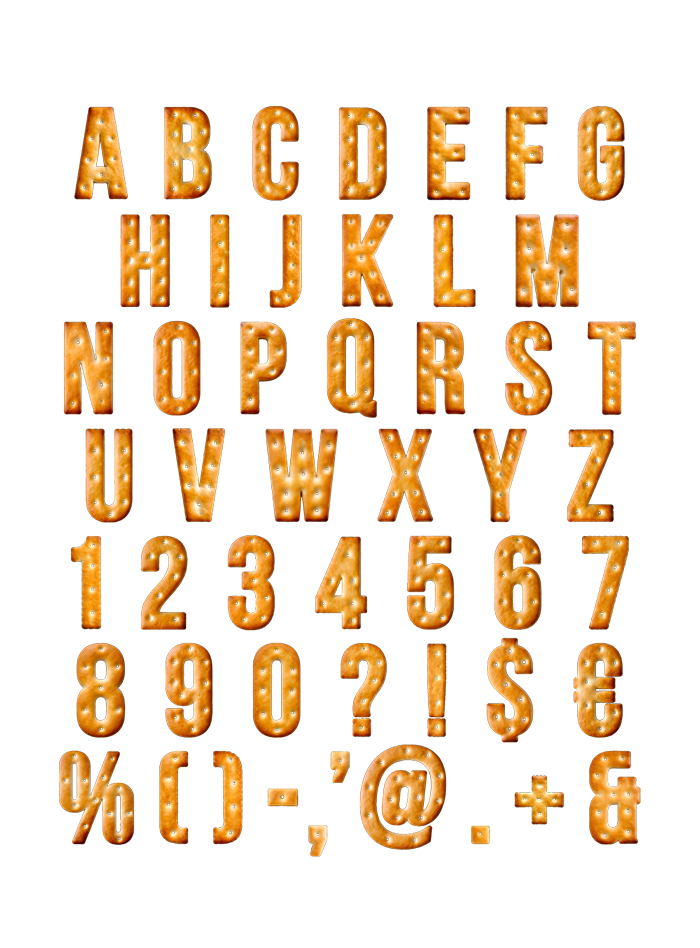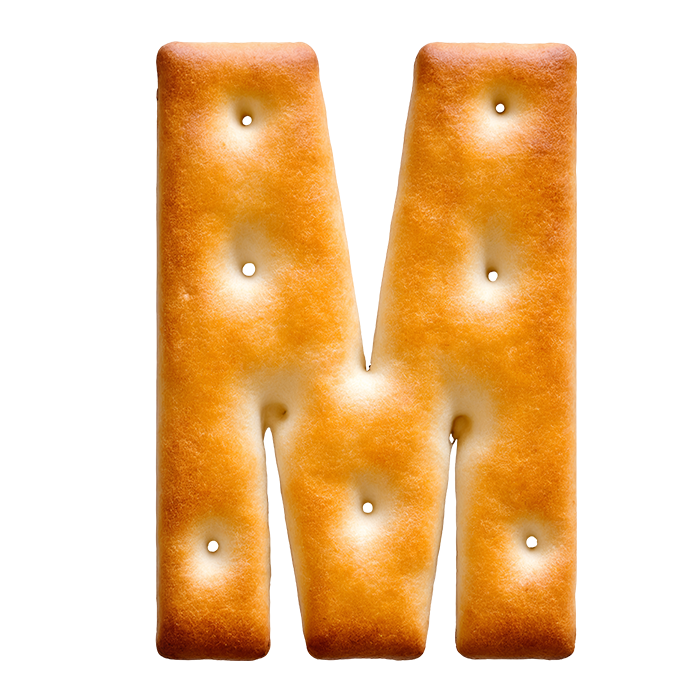
Crackers Font – Golden Baked Letters with Docking Holes
Golden baked crust, docking holes scattered in a loose grid, edges toasted a shade darker than the middles. The Crackers Font sits on narrow squared-off capitals, which is what a cracker wants to be anyway. Caps, numerals, currency and punctuation are baked the same way. Give it a warm ground and a big size, and it reads as homemade.
Baked, Docked and Slightly Uneven
Every character in the Crackers Font came out of an oven rather than a vector tool. Docking holes dot the surface in a loose grid, so no two letters carry the same pattern. Edges are toasted a shade darker, while the middles stay pale gold. Tiny bubbles and salt crystals also sit right on the crust, catching the light. Because each glyph bakes a little differently, a word never looks stamped out.
A Condensed Sans Underneath the Crumb
Strip the texture away and you find narrow, squared-off capitals. That is deliberate, since a cracker is flat and rectangular to begin with. Caps run A to Z, and numerals, currency and punctuation get baked the same way. Even the at sign kept its docking holes. So the set holds up long after the alphabet runs out.
Animation building a word letter by letter in the Crackers Font
It Wants Warm Light and Room
Cream, teal, dark brown: warm or contrasting grounds both bring out the crust. The mockups run it across a wall sign, a framed print, a black notebook and a white tee. Still, print it big, because the holes and crumbs are the entire point. And skip busy photographs, since the texture already does that job.
Where the Crackers Font Sells
Crackers Font cover spelling FONT in baked cracker capitals on cream
Full Crackers Font character set of baked capitals, numerals and symbols
Framed teal print of a cracker currency symbol from the Crackers Font
White t-shirt printed with two baked words in the Crackers Font
Wall sign spelling a short word in the Crackers Font on alternating panels
Pale blue poster with a four-line snack saying set in the Crackers Font
Black notebooks with a title baked in the Crackers Font on the cover
Cracker percent sign and at sign from the Crackers Font on a lilac background
Curled white poster with a four-line saying set in the Crackers Font
Crackers Font letters and numbers on a transparent background